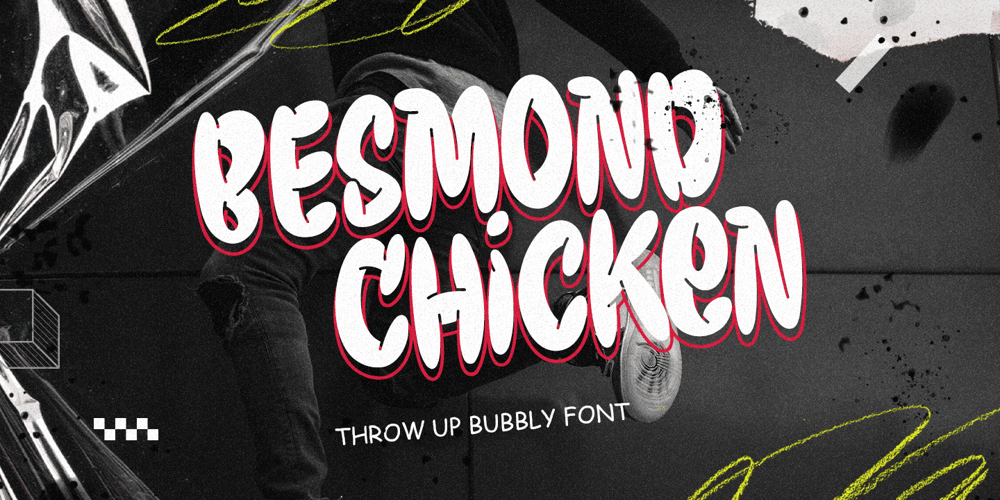
Besmond Chicken Font Family was designed by Ahmad Ramzi Fahruddin and published by Arterfak Project. Besmond Chicken contains 2 styles and family package options. get ready to give a joyful touch to your design! We present to you “Besmond Chicken” a playful bubble font, made from a combination of ‘throw-up’ graffiti and bubble style. It’s really exciting, positive and chill.This font has a unique design that you can mix and match with any other font, also flexible to apply in various design styles such as brutalism, urban style, sport, or minimalist style. Available in Solid and Outline which you can use combined or separately.Fonts featured: All capital characters set Numbers & punctuation Symbols & multilingual support Stylistic alternates Show me what you got with Besmond Chicken!